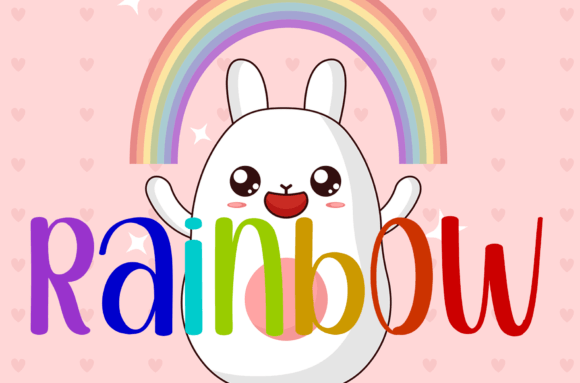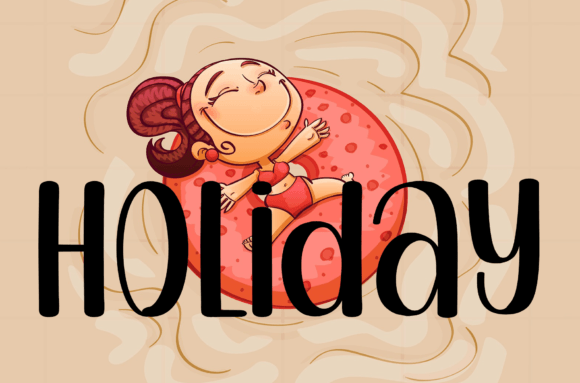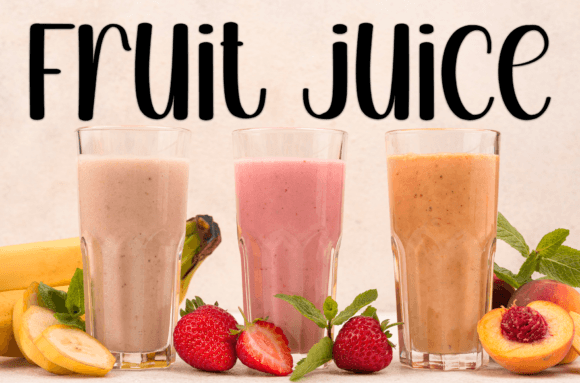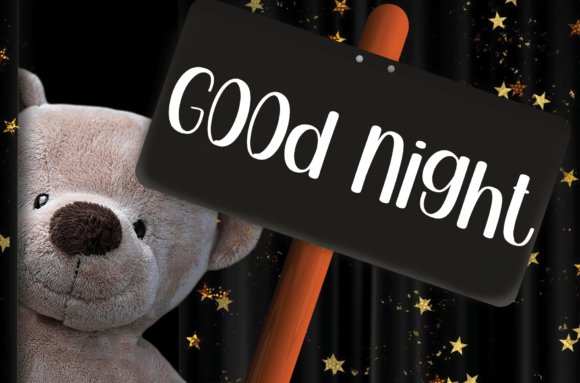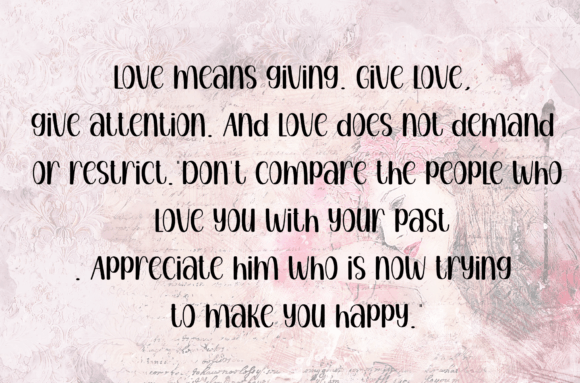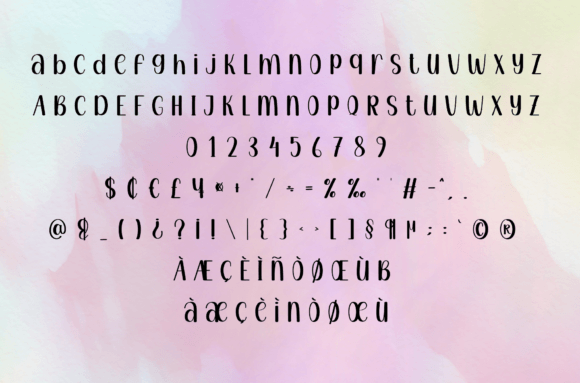
Introduction to Seamless Memory Font
Have you ever stared at a blank sheet of paper, waiting for inspiration to strike? Maybe you’re working on a creative project and need a design element that’s both whimsical and professional. That’s where the Seamless Memory Font comes in – a delightful handwritten font that’s sure to bring a smile to your face and a touch of elegance to your designs.
As a designer, you’re always on the lookout for high-quality resources to elevate your work. With Seamless Memory Font, you’ll find the perfect blend of friendliness and sophistication. Whether you’re crafting wedding invitations, designing greeting cards, or creating any other type of visual content, this font is an excellent choice. Its transparent background and free download make it a valuable addition to your design toolkit.
- Unique, hand-drawn design style with subtle texture and nuance for added visual interest in creative projects
Honest Review: Seamless Memory Font
I recently had the opportunity to work with the Seamless Memory Font, and I must say it’s a fantastic addition to any design resource. The font is a great choice for creative projects where you need a clean and elegant look.
- ✨ High-quality design: The Seamless Memory Font is well-designed and visually appealing.
One of the things I like most about the Seamless Memory Font is its versatility. It’s perfect for use in logos, headings, and body text.
- ⚠️ Limited character set: The font’s character set is somewhat limited, which may be a problem for designers working on projects that require a wide range of characters.
- ⚠️ Not suitable for all design styles: While the Seamless Memory Font is great for clean and elegant designs, it may not be the best choice for more playful or avant-garde projects.
Overall, I’m really impressed with the Seamless Memory Font. It’s a high-quality design resource that’s perfect for a wide range of creative projects. Just be aware of its limitations, and you’ll be all set.
Use the Seamless Memory Font in conjunction with a transparent background to create a modern and sleek design. Experiment with different font sizes and colors to add visual interest to your project.
The Seamless Memory Font is ideal for a variety of creative projects, including logos, branding materials, and marketing collateral. It’s also great for use in presentations, reports, and other documents where a high-quality font is needed.